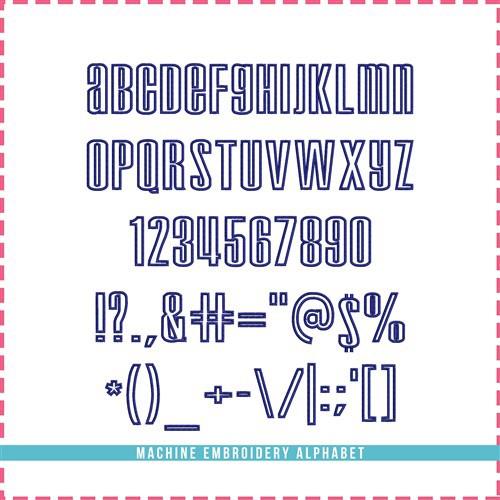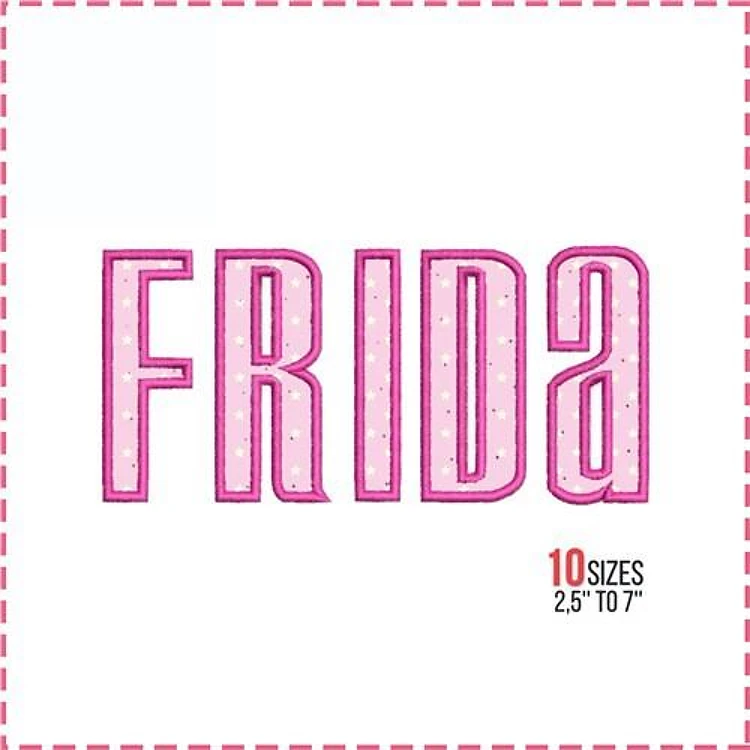
Maya Kreations is happy to present Frida Applique Font machine embroidery font which has Bold pink applique machine embroidery font ideal for creative projects like bags and jackets. The letters are outlined and filled for a dimensional look. Available in PES, DST and other formats. included. If you would like to view more embroidery fonts and alphabets please search our embroidery fonts page.